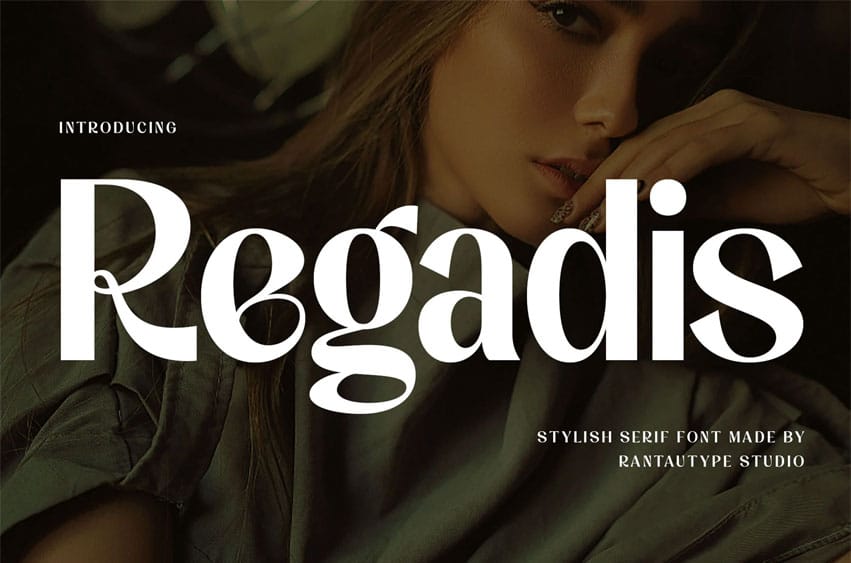
Regadis Font is a stylish serif font that embraces grace and luxury. Regadis brings beautiful curves to make your design project awesome. Regadis is a perfect choice for any creative endeavor, chic, lifestyle design such as logotype, advertisements, watermark on photography, stationery, branding project, display and magazine, invitation, corporate brand, product design, label, business project, and many other projects with a modern touch.